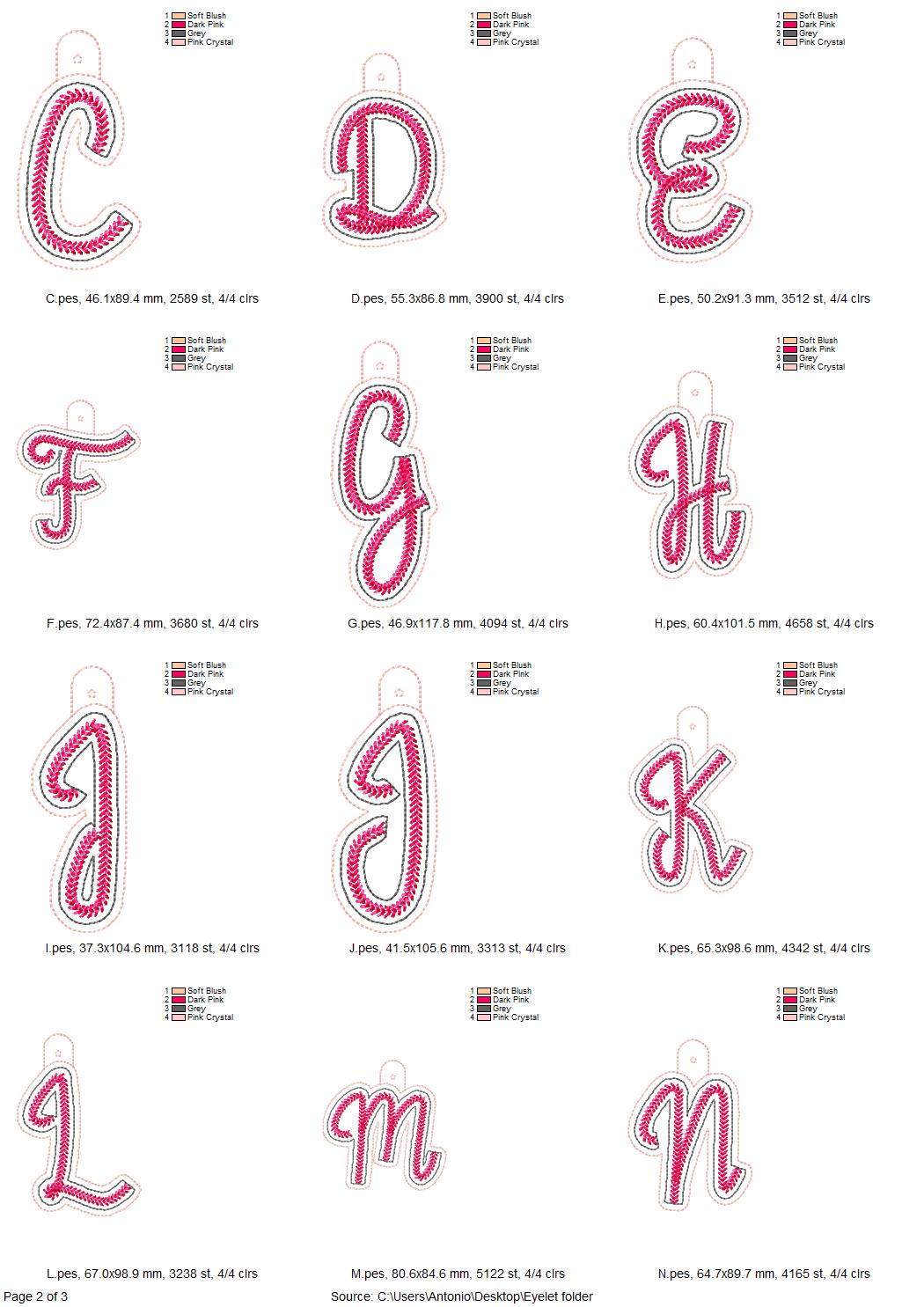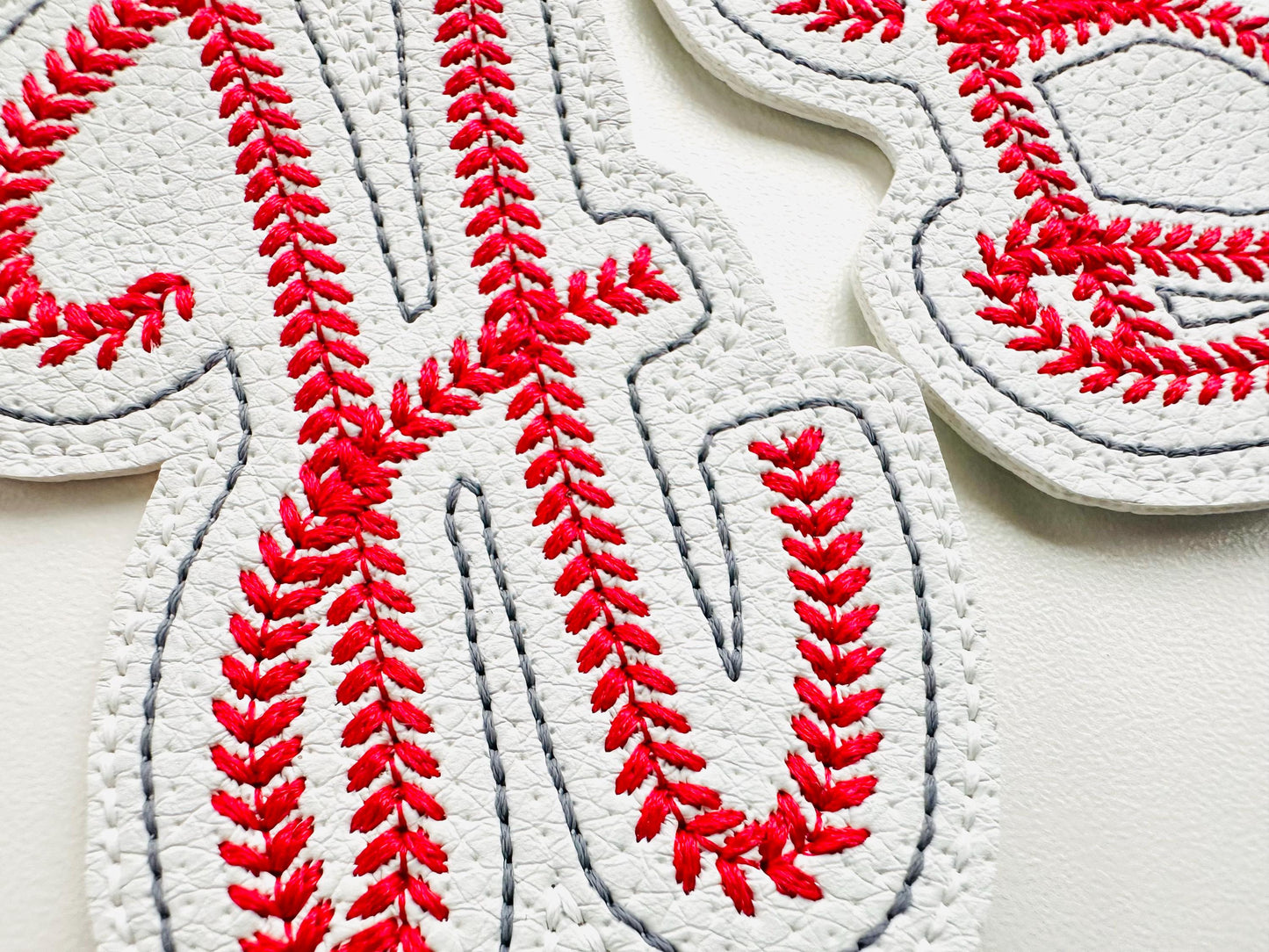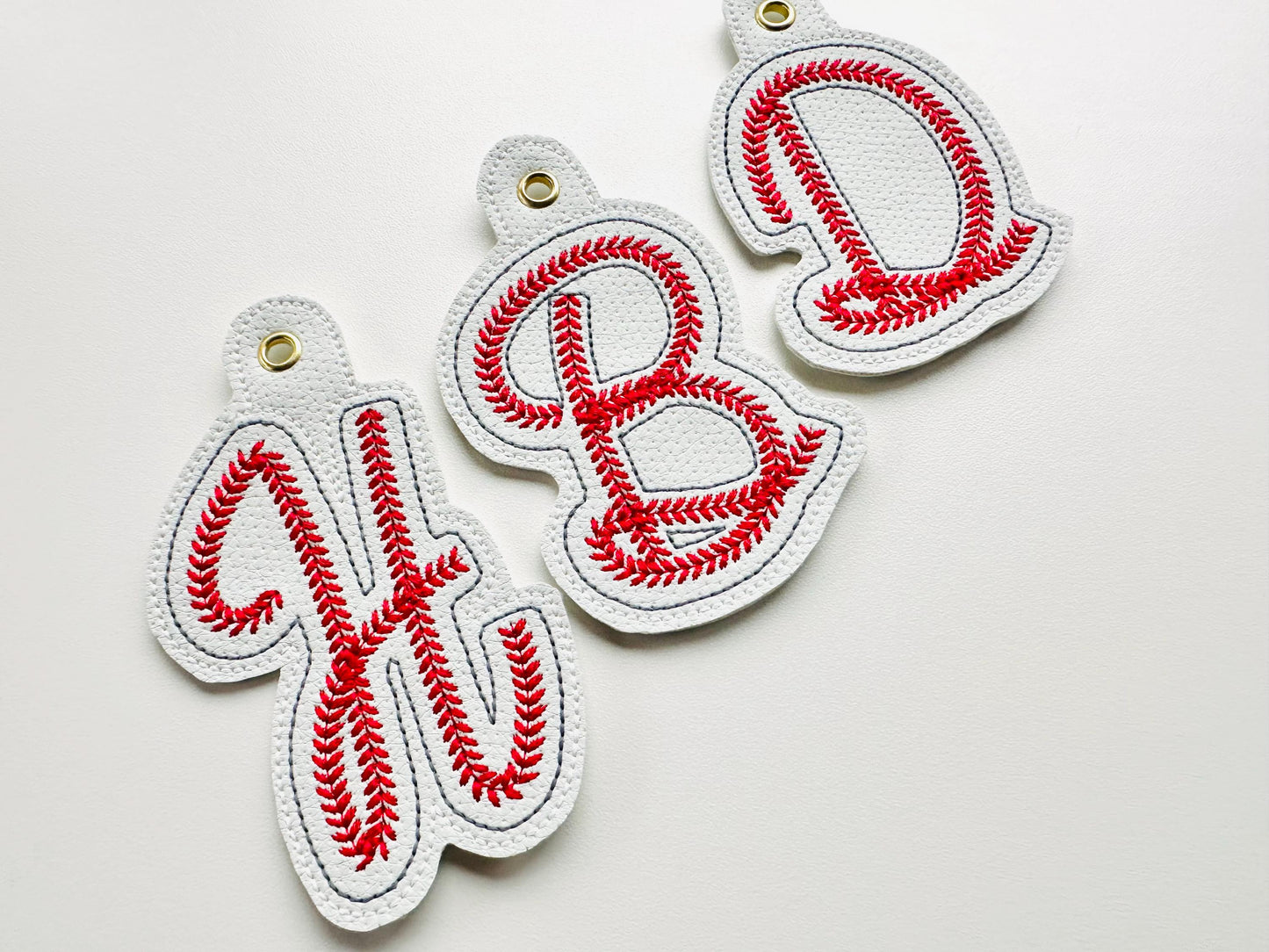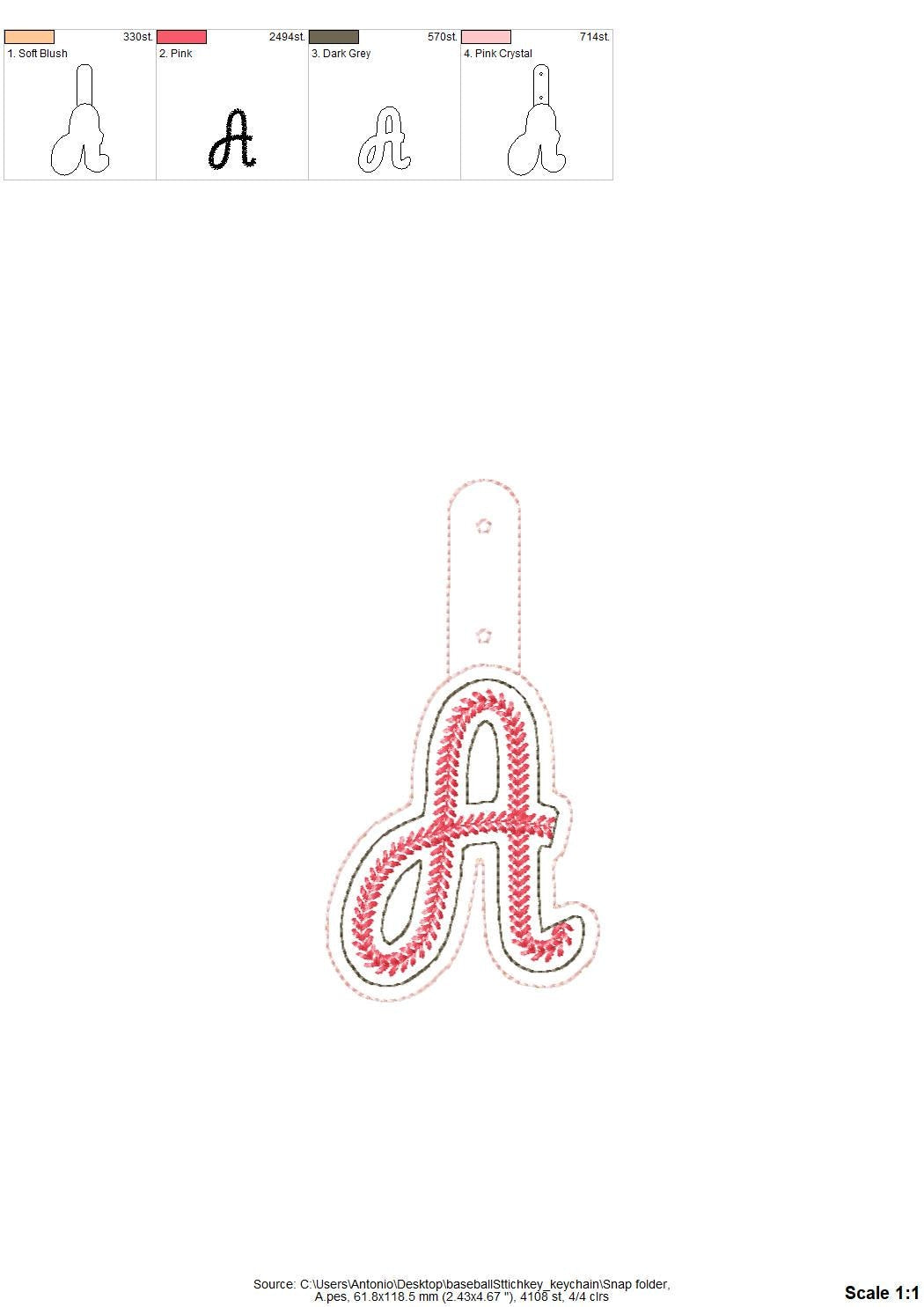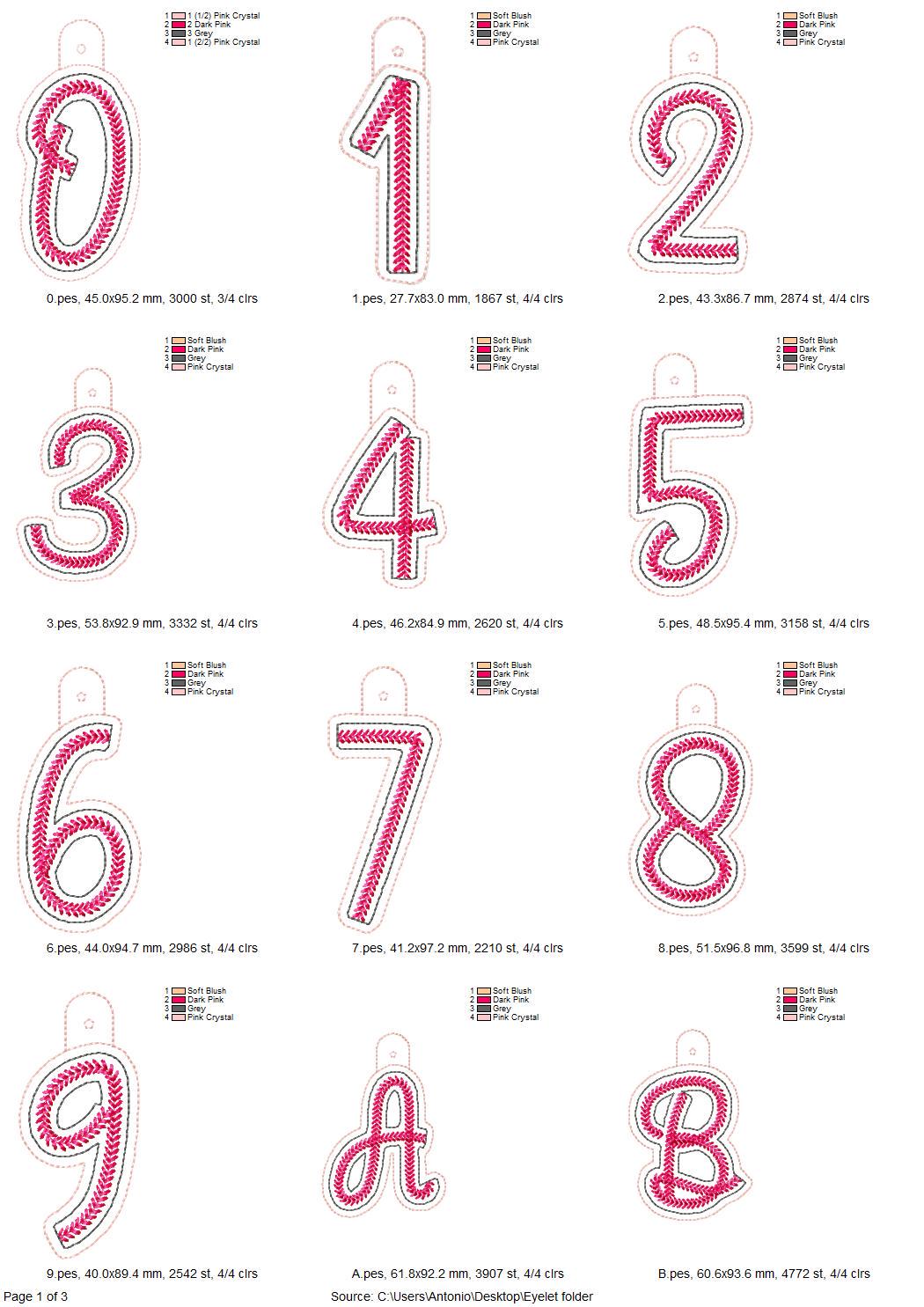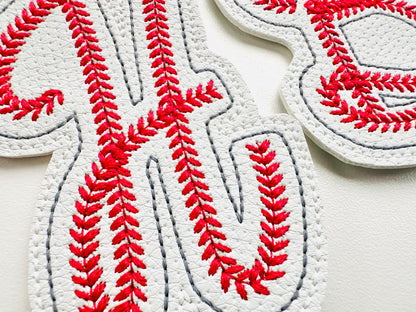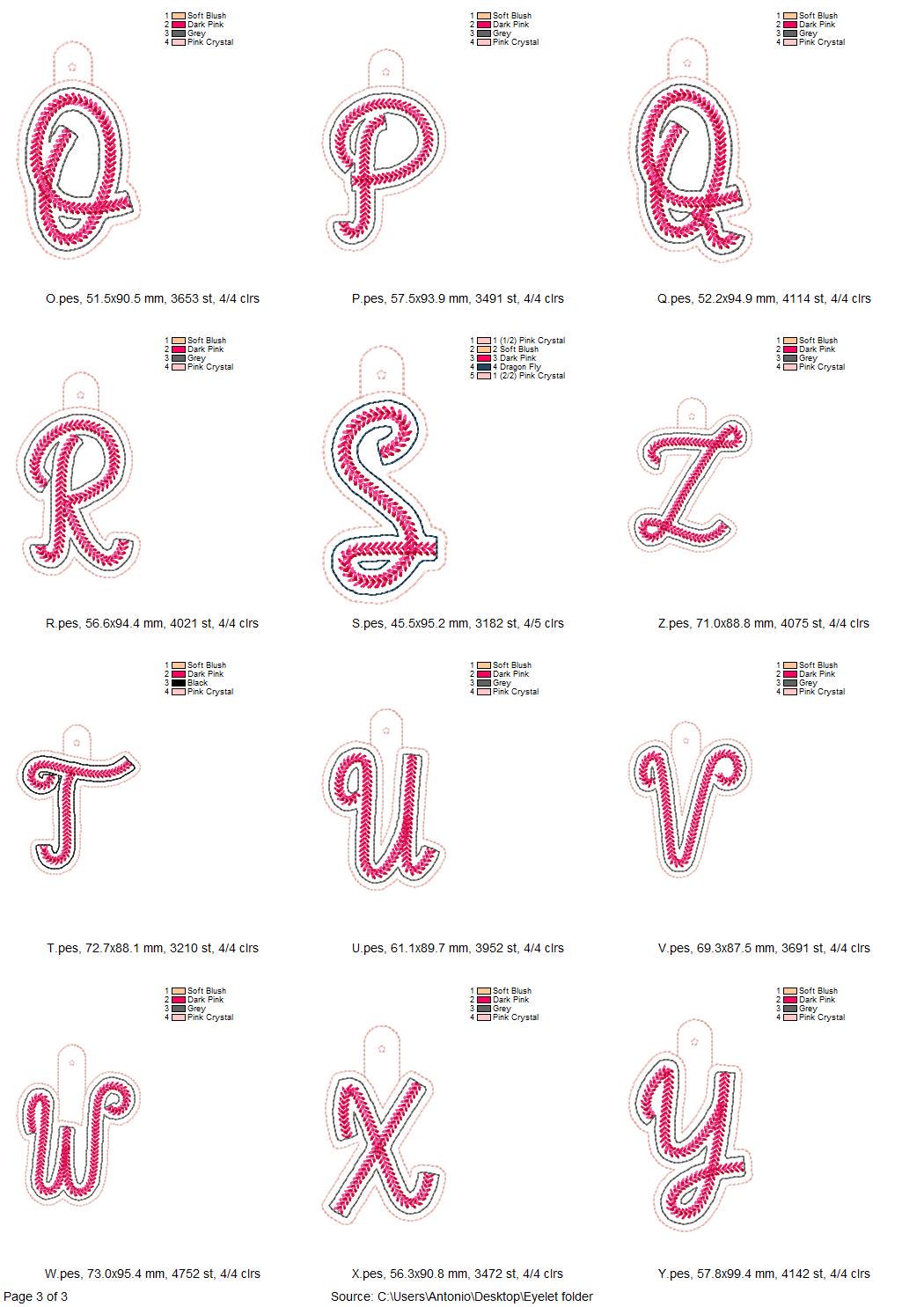
Baseball Stitch Sports Monogram Keychain
Included:Uppercase A-Z, Numbers 0-9
Baseball stitch Sports Monogram handwritten Font, Eyelet and Key Fob, Snap Tab in the hoop (ITH) machine embroidery design, keychain gift idea
Entire alphabet A-Z, numbers 0-9 are included